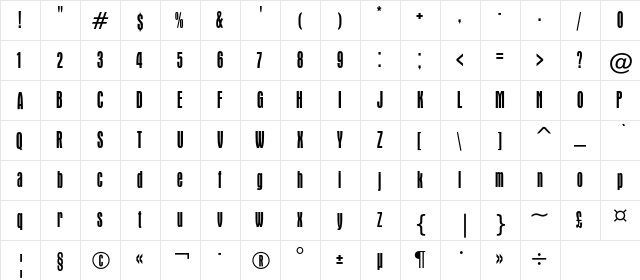
Apical-Roman Regular
Design Context for Apical-Roman Typeface
Apical-Roman offers clean, dependable letterforms without strong stylistic allegiance, making it a practical choice for designers who need flexibility.